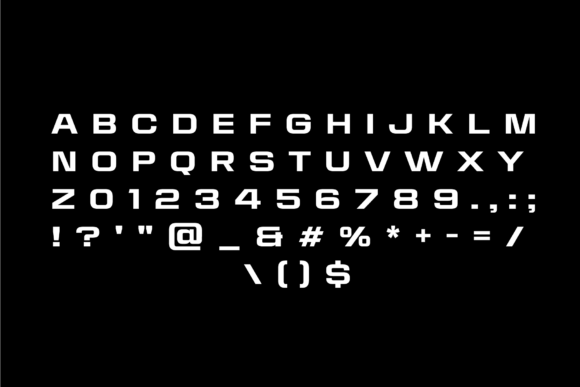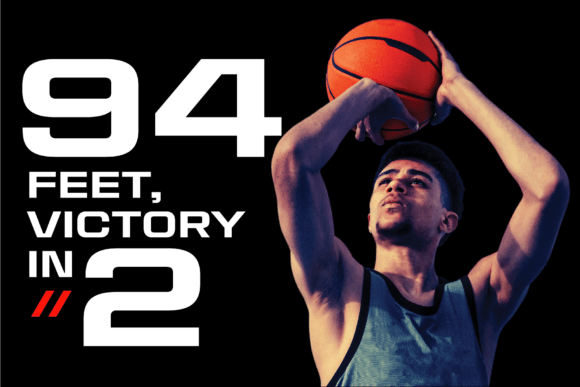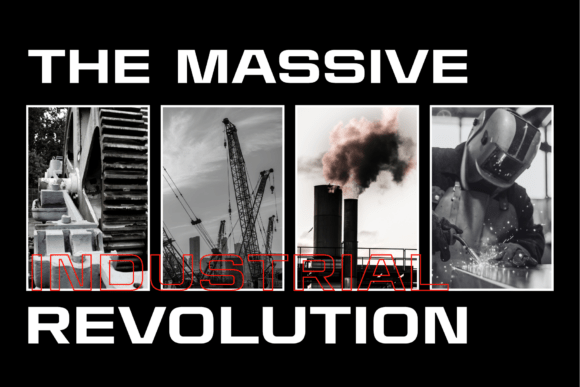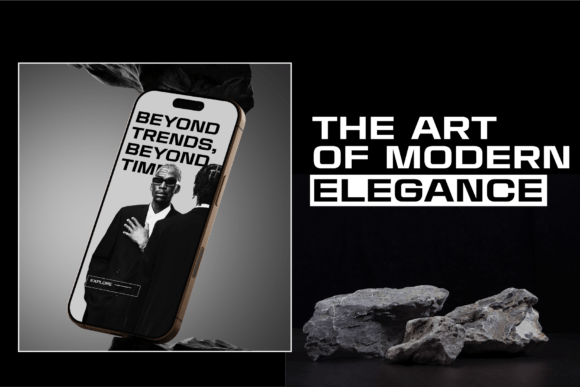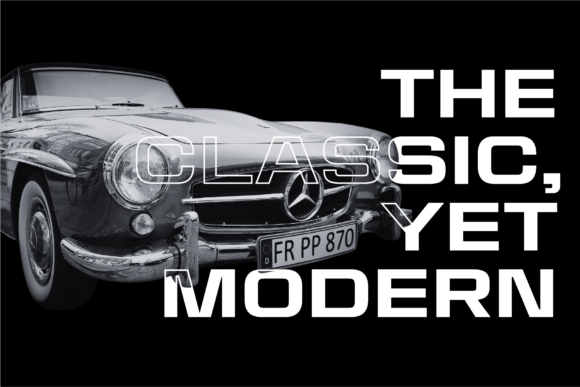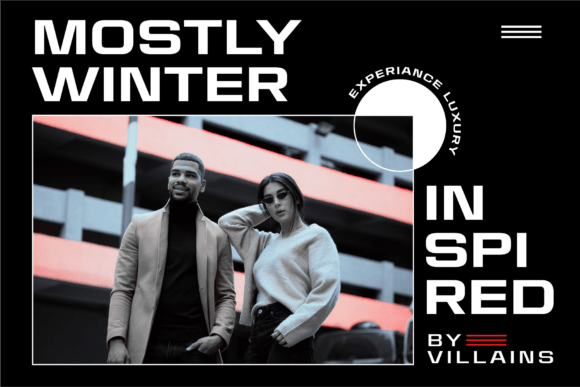
Introduction to Machn Font
Machn is a striking expanded sans-serif font designed for bold statements and high-impact visuals.
With its strong geometric structure, wide letterforms, and clean lines, this geometric typeface exudes a sense of power, modernity, and confidence Ideal for logos, branding, headlines, posters, and tech-inspired designs, Machn seamlessly blends industrial strength with contemporary aesthetics.